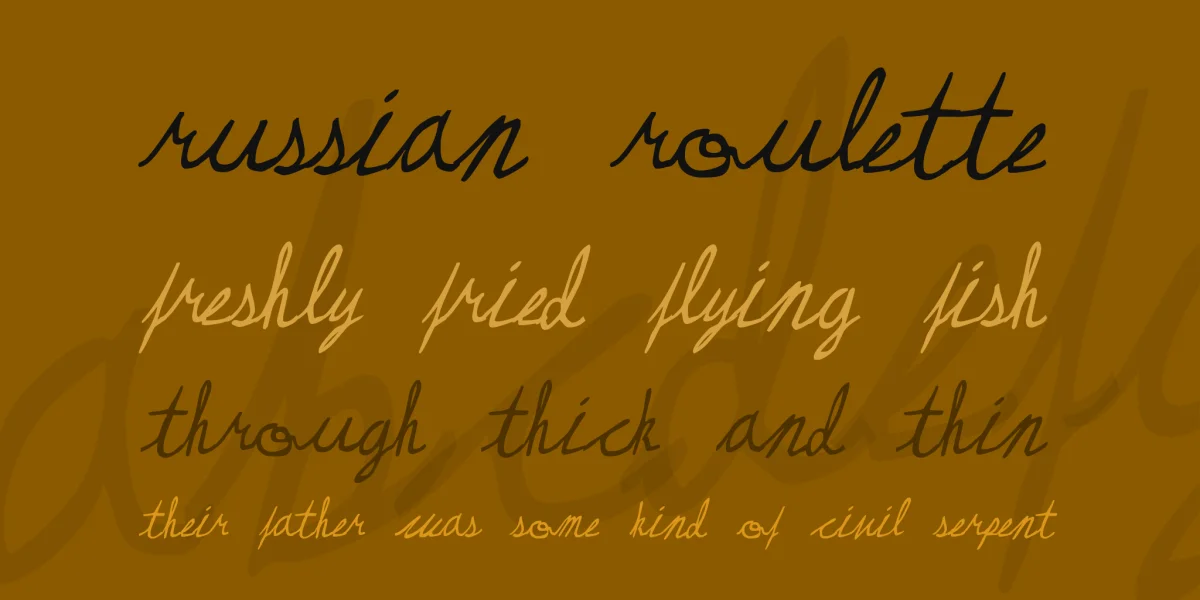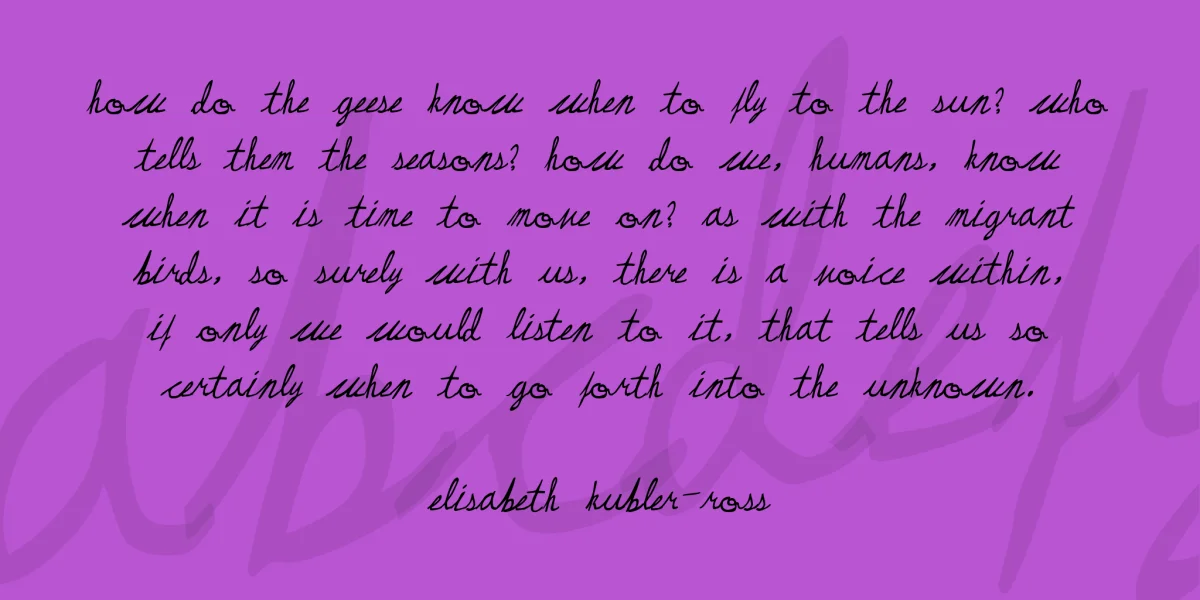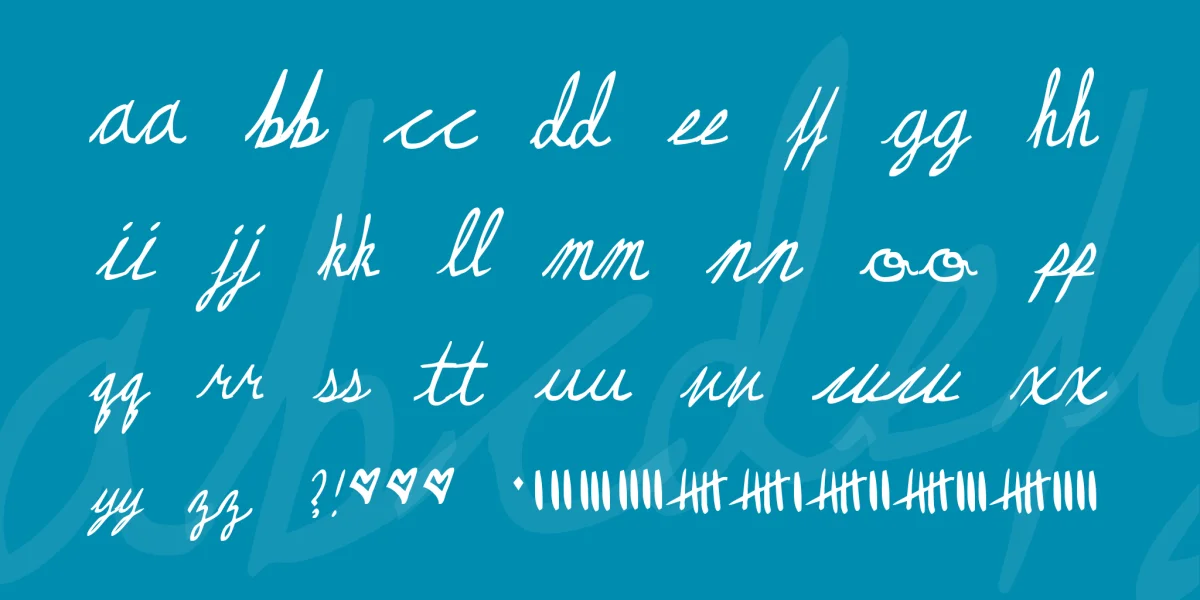
(Caps/Lower [same], numerals (sort of), some punctuation and special) is my first cursive font; it looks best in a program that pays attention to the kerning, though at small sizes it doesn't really matter. This font is for Liz Phair. Come on Liz, put your new album out already! Hand kerned.